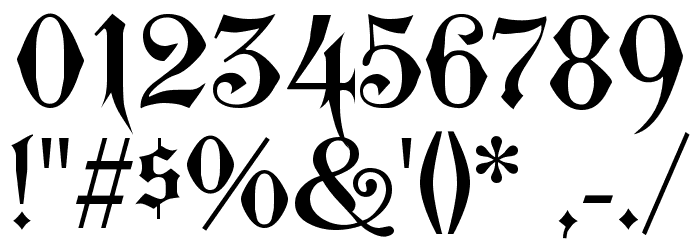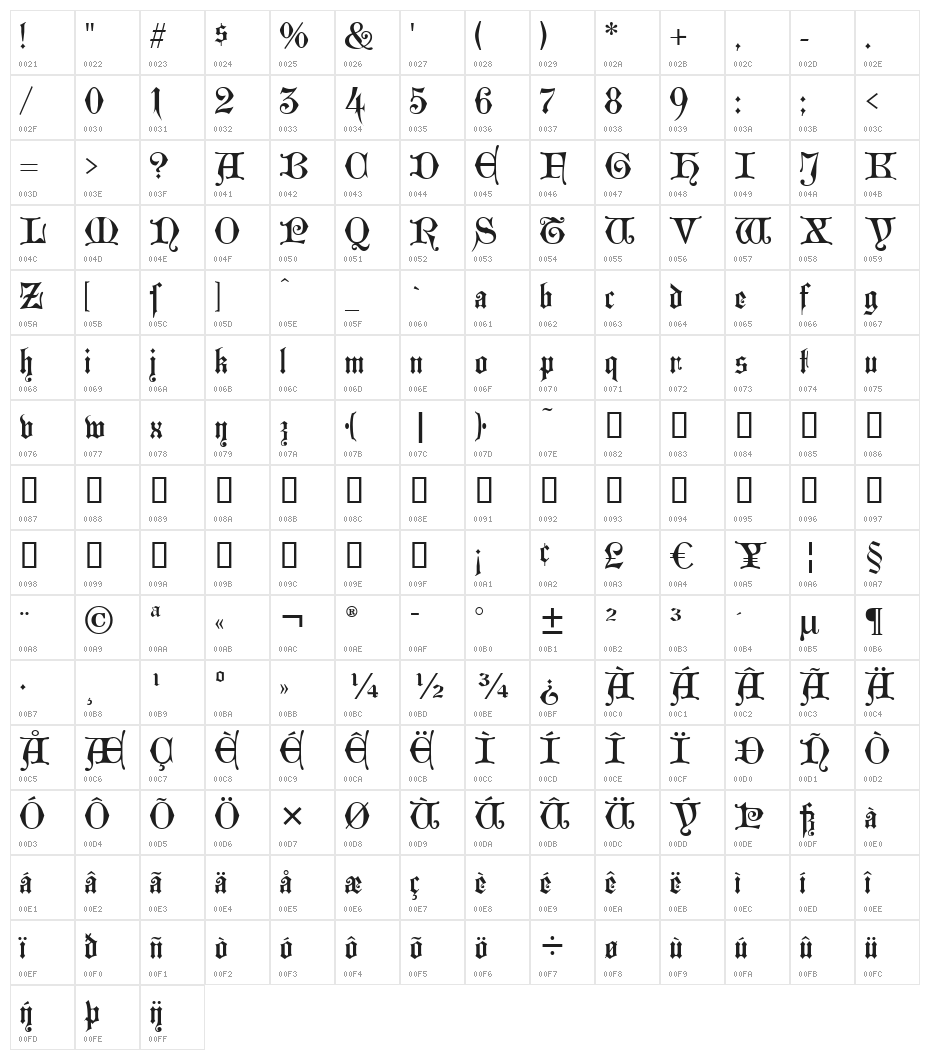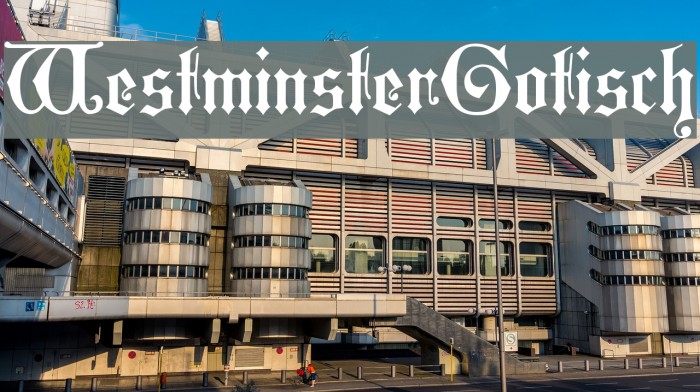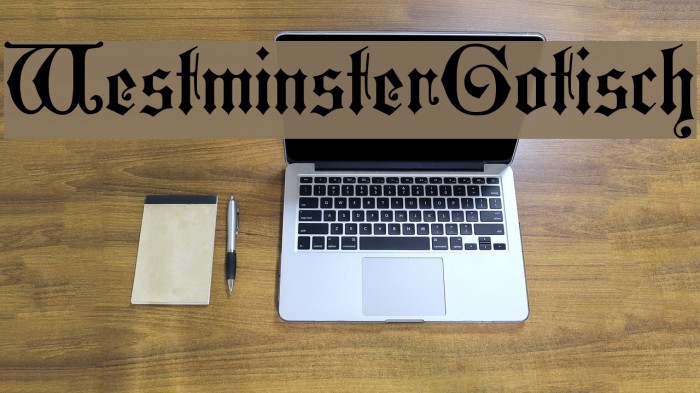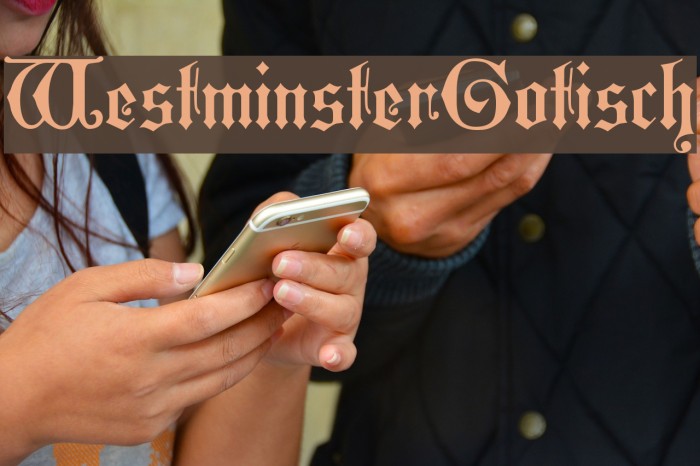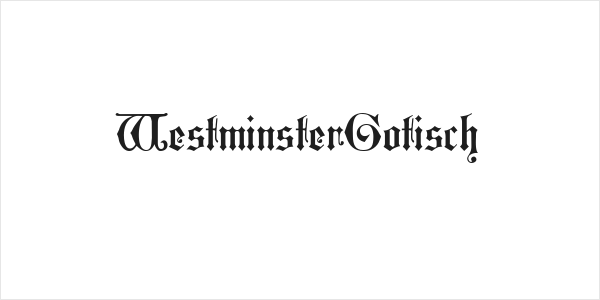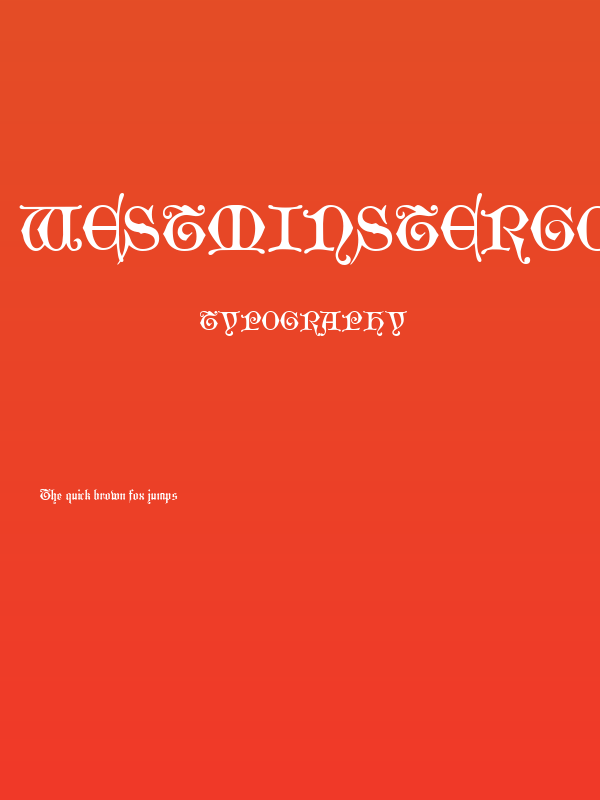
WestminsterGotisch Font
WestminsterGotisch Description
This font exhibits a classic blackletter style, characterized by its intricate and ornate letterforms. The uppercase letters are elaborate, with sharp angles and decorative elements that give a sense of historical elegance. The lowercase letters maintain a consistent style, featuring pointed edges and a strong vertical emphasis. Numbers and special characters are designed to match the overall aesthetic, with a bold presence and unique flair. This font is reminiscent of medieval manuscripts, offering a sense of tradition and formality.
Overall StyleVintage
Use CaseLogos, Headlines, Decorative purposes
Proposed ProjectsIdeal for historical or medieval-themed projects, such as book covers, posters, or branding for events that require a traditional and formal appearance.